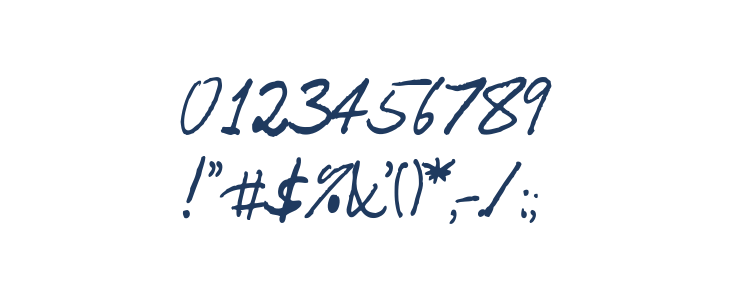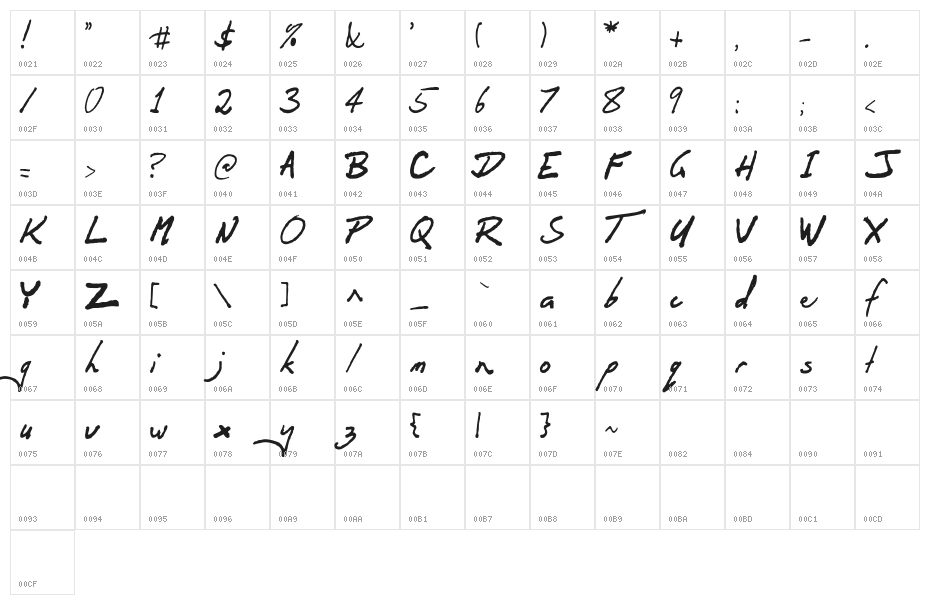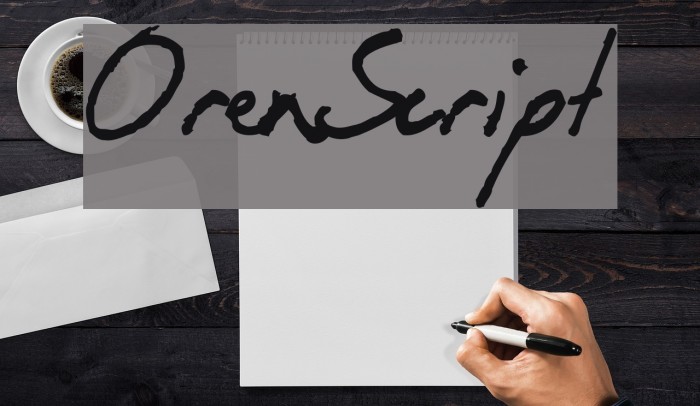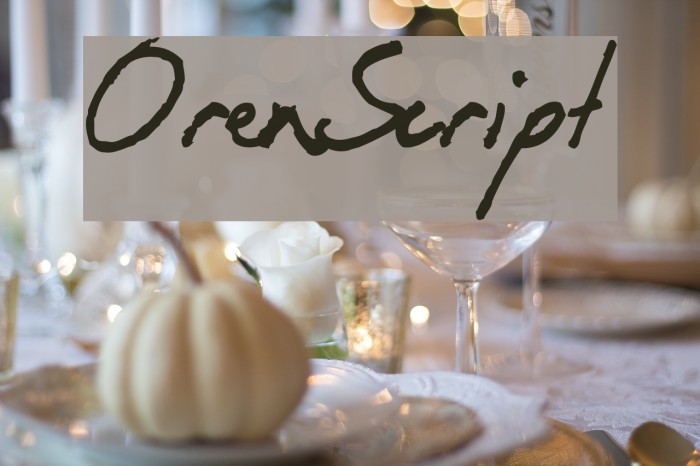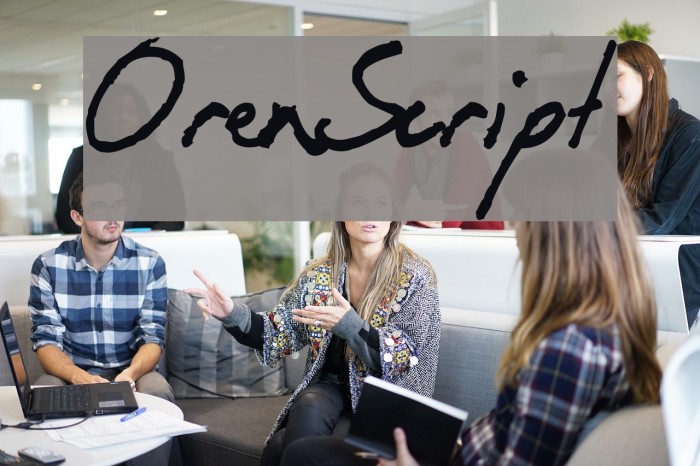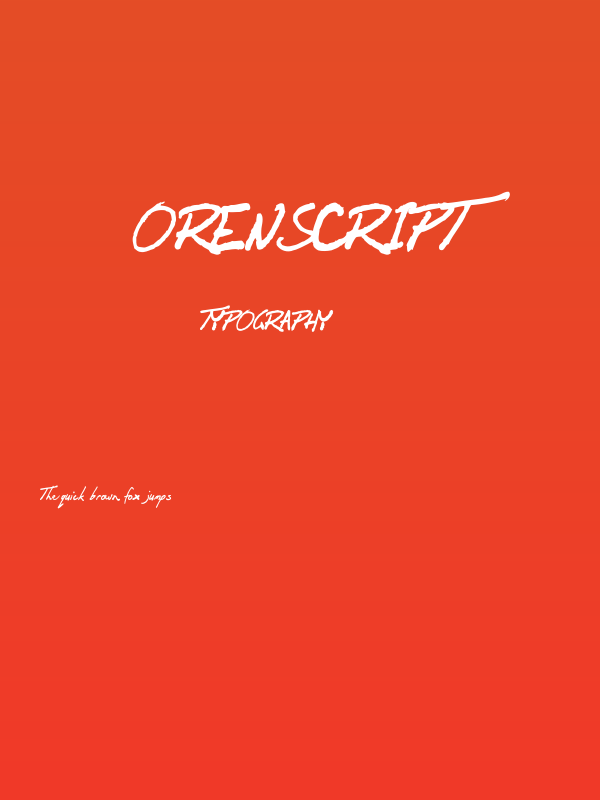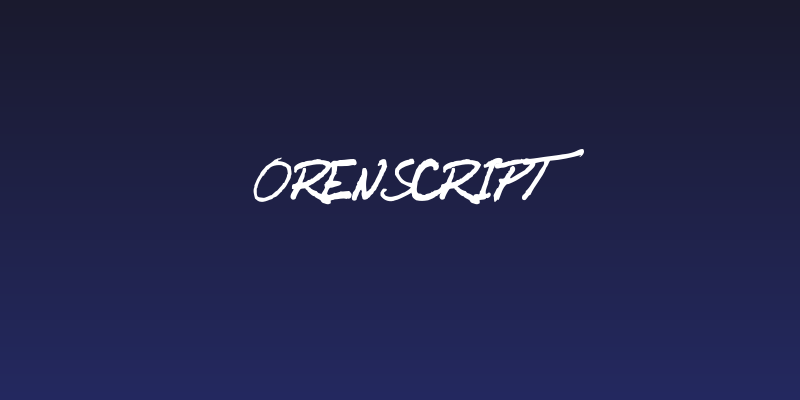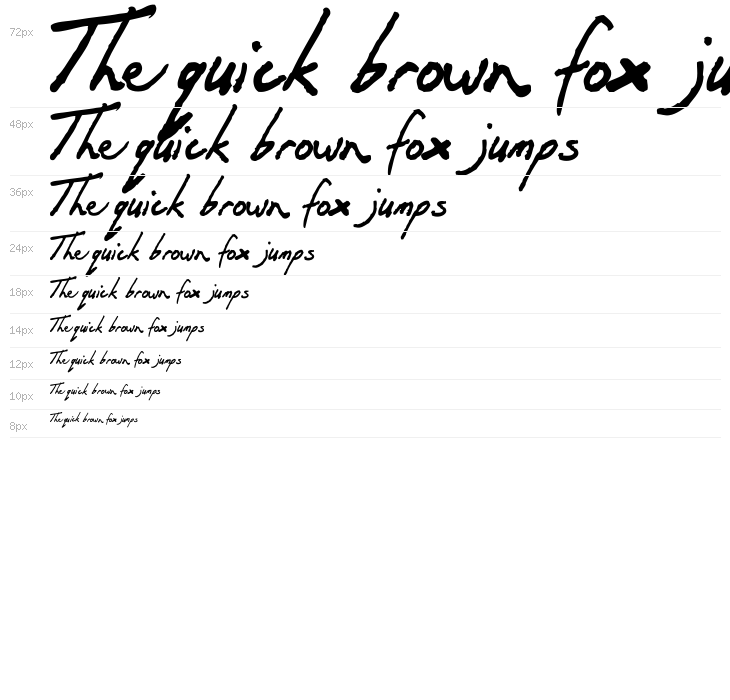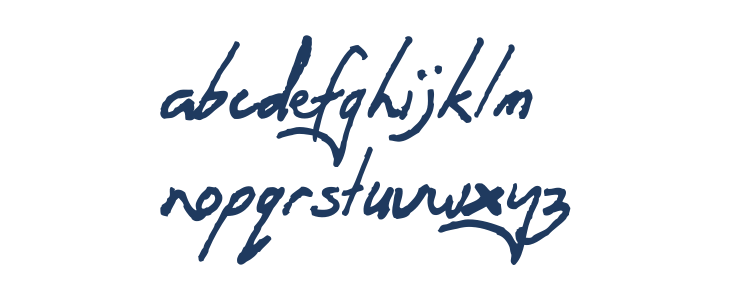
OrenScript Font
OrenScript Description
This font exudes a dynamic and energetic feel, characterized by its bold, free-flowing strokes that mimic the natural motion of handwriting. The letters are slightly slanted, adding to the casual and informal appearance. The uppercase and lowercase letters maintain a consistent style, with some letters featuring unique flourishes that enhance the handwritten aesthetic. The numbers and special characters are crafted with the same lively touch, ensuring a cohesive look across all characters. This font is ideal for projects that require a personal, human touch, such as invitations, greeting cards, or artistic designs.
| Overall Style | Casual, Artistic |
| Use Case | Logos, Headlines, Artistic designs |
| Proposed Projects | Ideal for invitations, greeting cards, artistic designs, and any project needing a personal touch. |